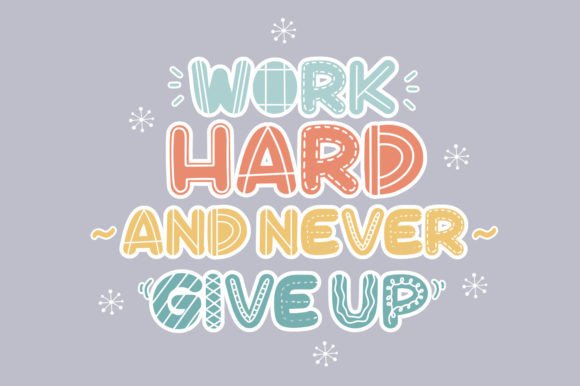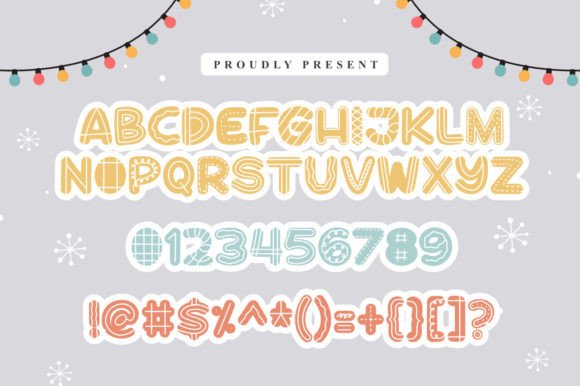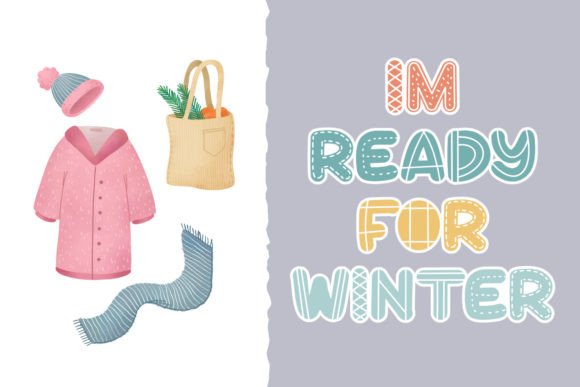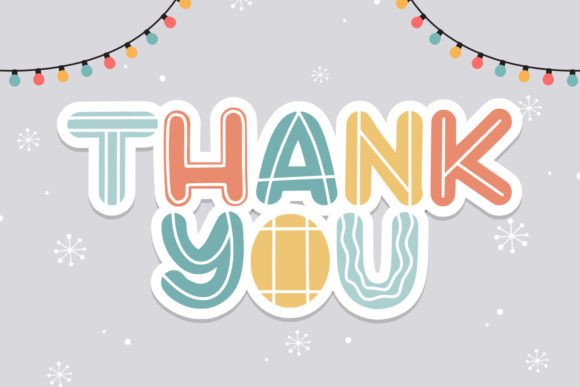
Introducing Decor Cake Font: The Sweetest Addition to Your Design Collection
Are you tired of using the same old fonts in your designs? Look no further! Decor Cake font is a delightful display font that is sure to add a touch of whimsy and fun to your creations. This adorable font is perfect for designers and crafters who want to add a personal and playful touch to their work.
What Makes Decor Cake Font So Special?
Decor Cake font is a handmade, handwritten font that features a little ornament in each letter, making it truly one-of-a-kind. The font is designed to be cute and colorful, with a playful vibe that’s perfect for designs with fun themes. Whether you’re working on a project for a children’s party, a baking blog, or a craft tutorial, Decor Cake font is the perfect choice.
Key Features of Decor Cake Font
- Cute and Colorful: Decor Cake font is designed to be bright and cheerful, with a bold and playful style that’s sure to grab attention.
- Handwritten with Love: Each letter in Decor Cake font is carefully handwritten with a personal touch, making it feel warm and inviting.
- Ornate Details: Every letter features a little ornament, adding an extra touch of whimsy and fun to your designs.
- Versatile: Decor Cake font is perfect for a wide range of design projects, from party invitations to baking blogs, craft tutorials, and more.
How to Use Decor Cake Font in Your Designs
- Party Invitations: Use Decor Cake font to create adorable party invitations that set the tone for a fun and festive celebration.
- Baking Blogs: Add a touch of personality to your baking blog with Decor Cake font, perfect for recipe titles, headings, and more.
- Craft Tutorials: Use Decor Cake font to add a playful touch to your craft tutorials, making them more engaging and fun for your readers.
- Social Media Graphics: Create eye-catching social media graphics with Decor Cake font, perfect for promoting your brand or business.
Why Designers and Crafters Love Decor Cake Font
Decor Cake font is quickly becoming a favorite among designers and crafters, and it’s easy to see why. Here are a few reasons why:
- Unique and Playful: Decor Cake font offers a unique and playful style that’s hard to find in other fonts.
- Easily Readable: Despite its ornate details, Decor Cake font is surprisingly easy to read, making it perfect for use in a variety of design projects.
- Customizable: Decor Cake font can be customized to fit your design needs, allowing you to adjust the size, color, and more.